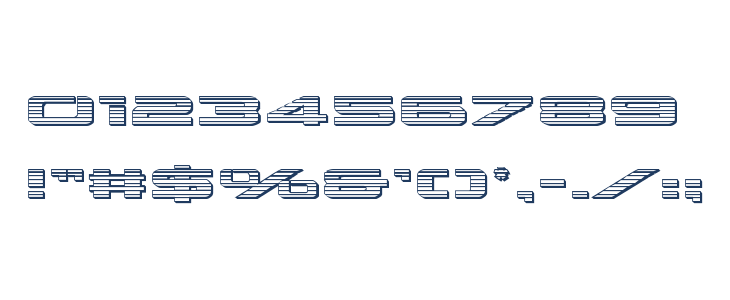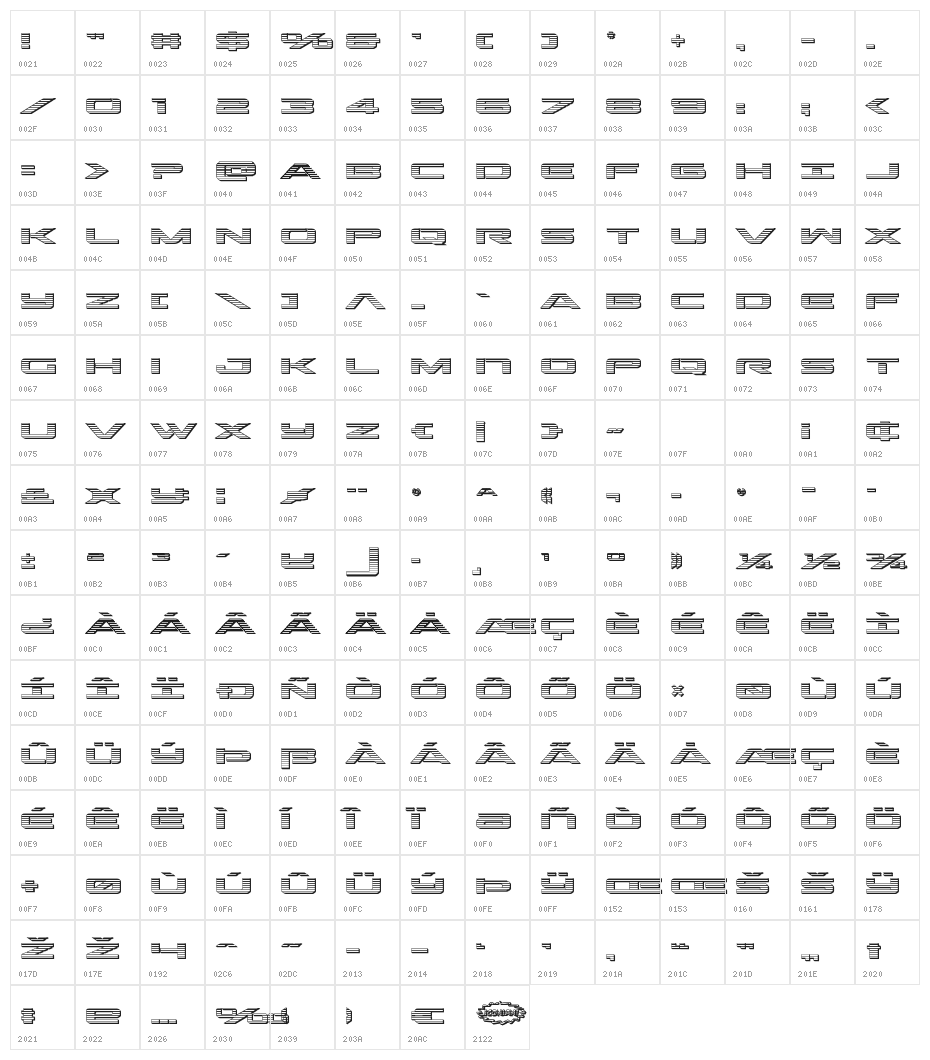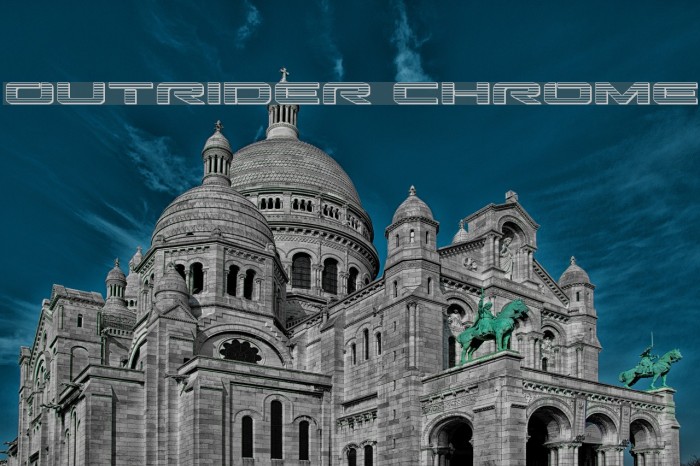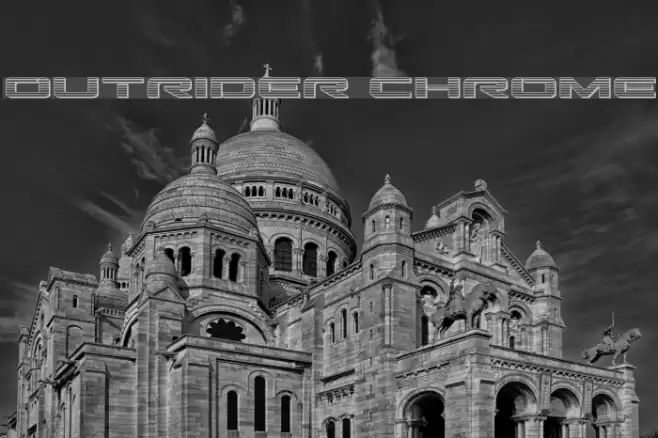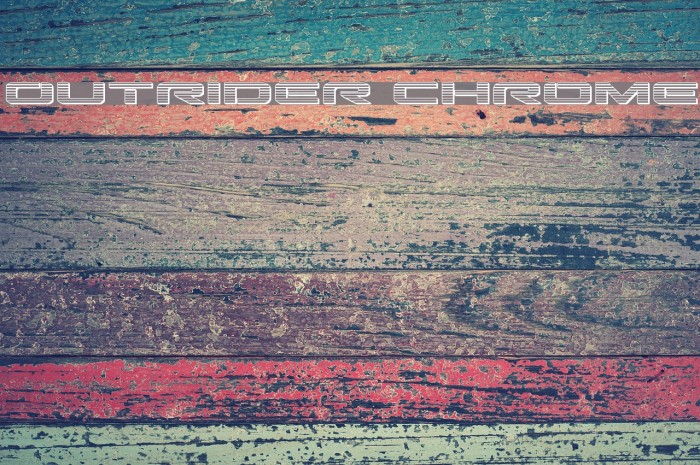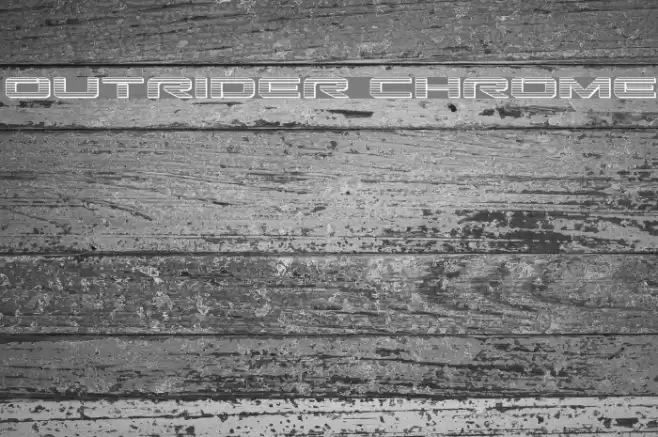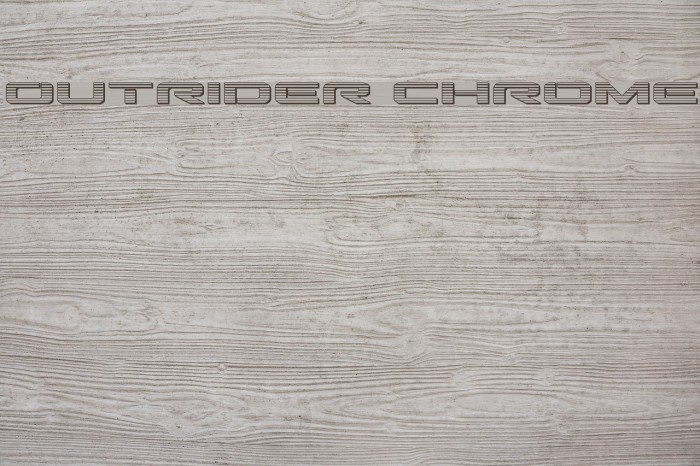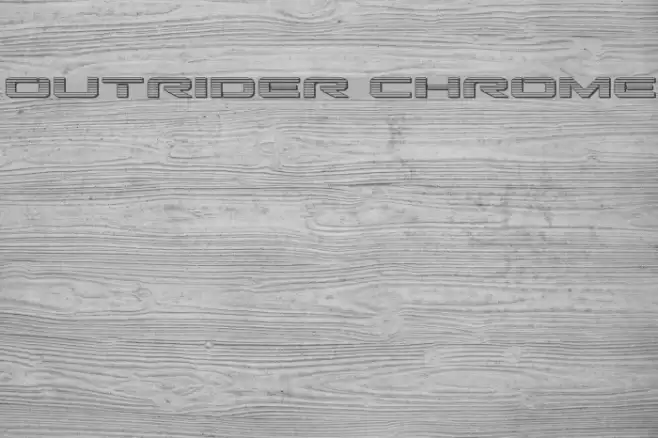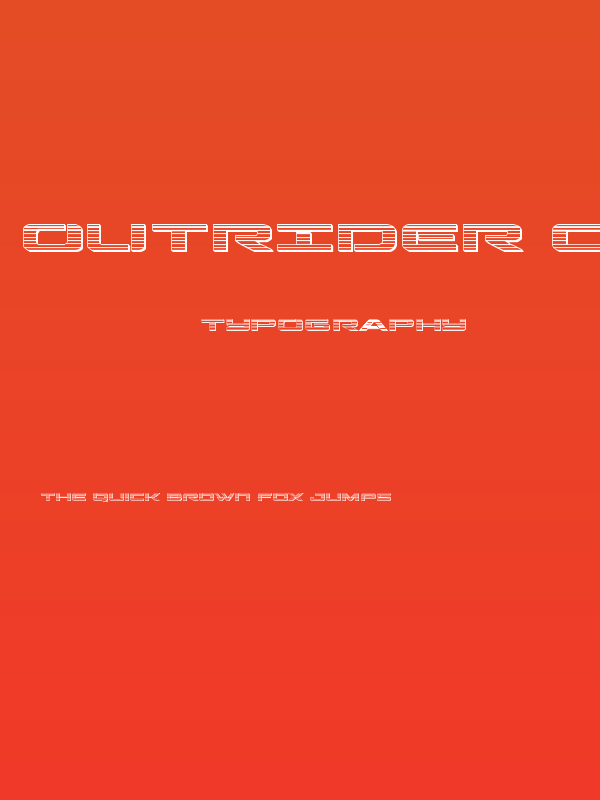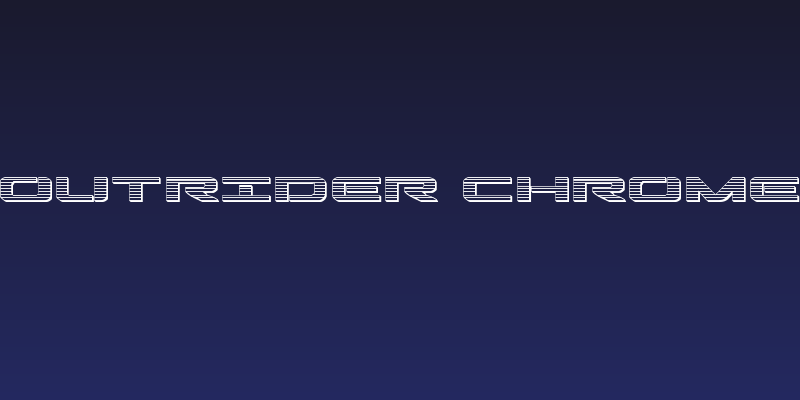
Outrider Chrome Font
Outrider Chrome Description
This font features a futuristic and industrial design, characterized by its bold, geometric shapes and multi-line detailing. The letters are constructed with a series of parallel lines, creating a sense of depth and dimensionality. The uppercase and lowercase letters maintain a consistent style, with sharp angles and clean edges. The numerals and special characters follow the same design principles, ensuring a cohesive look across all glyphs. This font's unique style makes it stand out, ideal for projects that require a modern and edgy aesthetic.
| Proposed Projects | Ideal for sci-fi themed designs, tech branding, video game titles, and futuristic posters. |